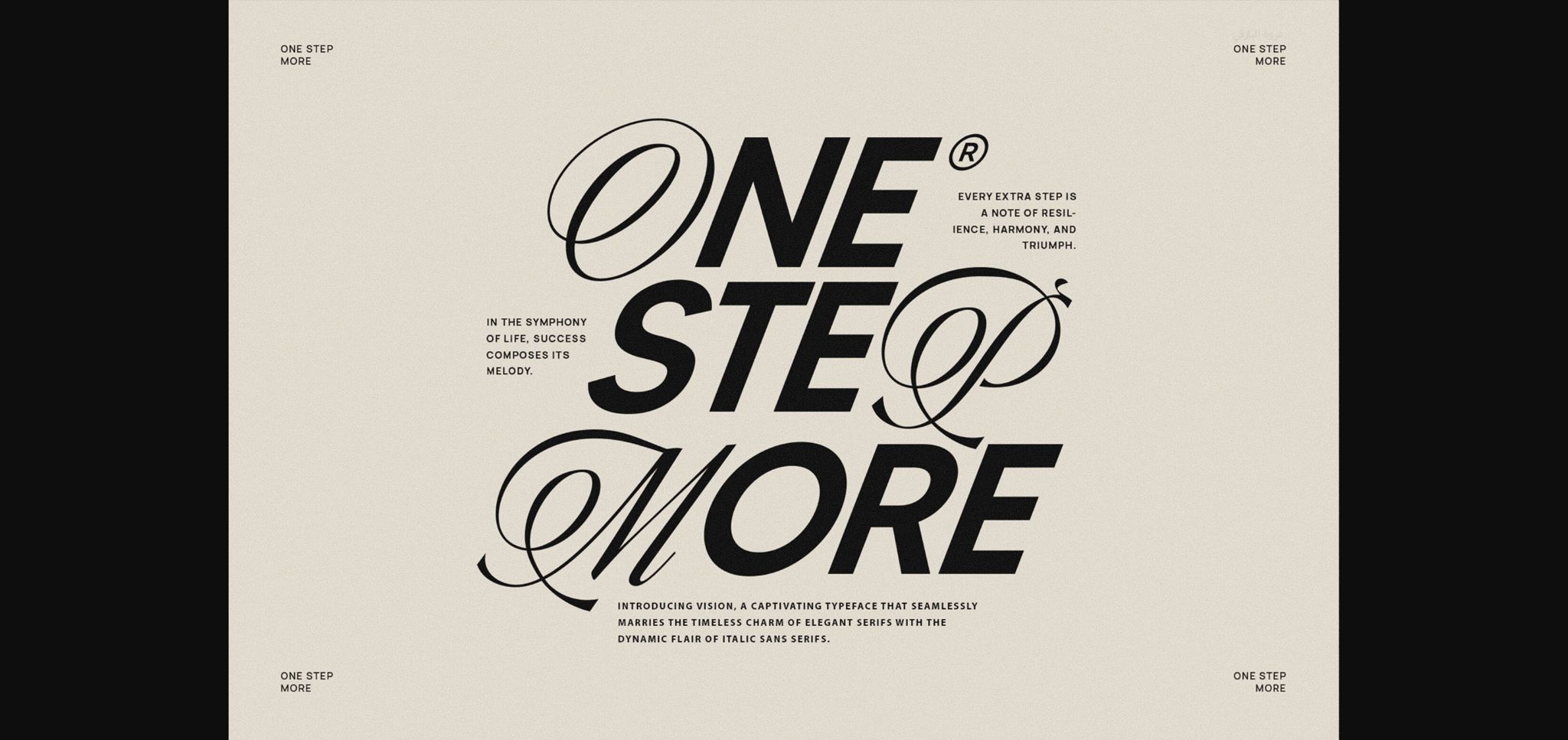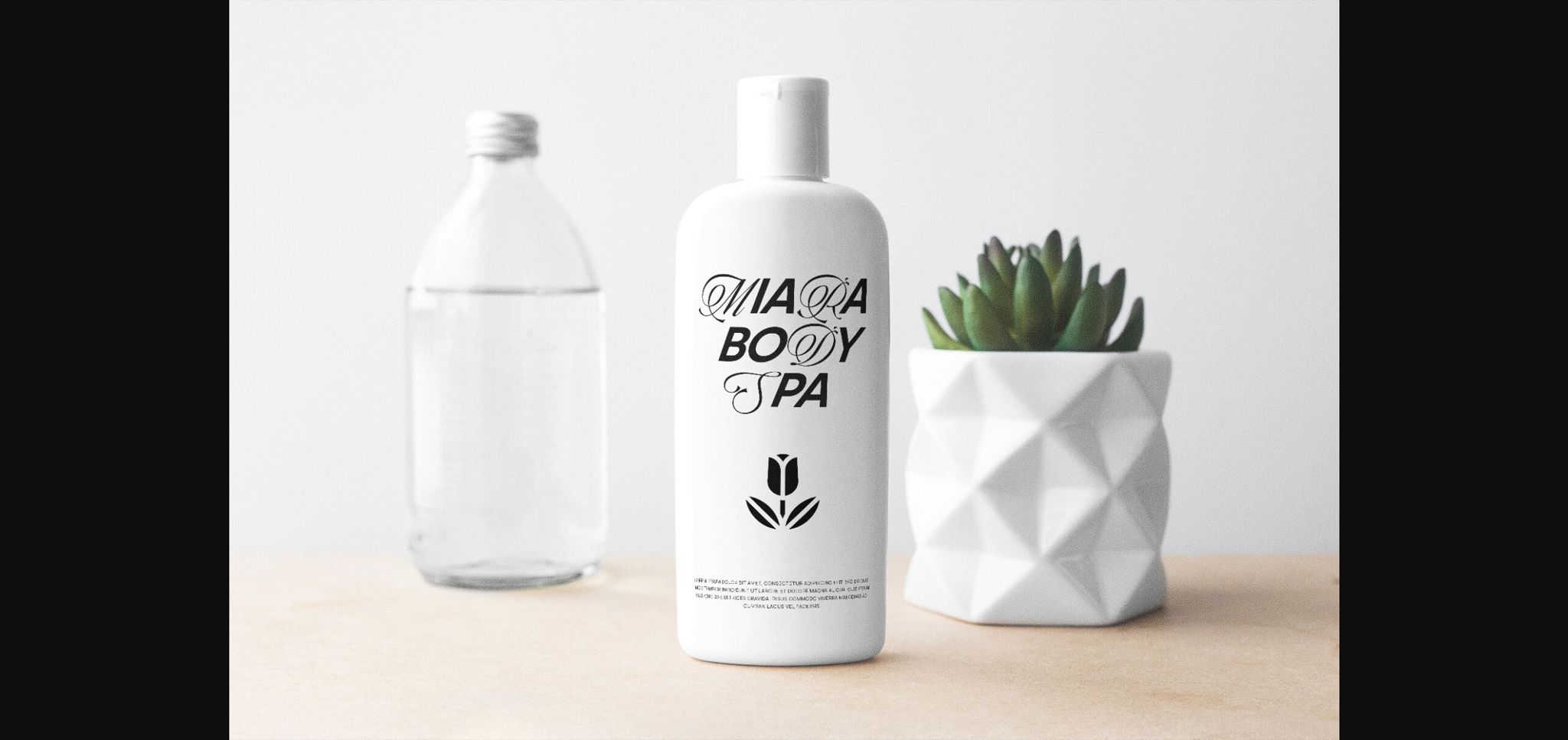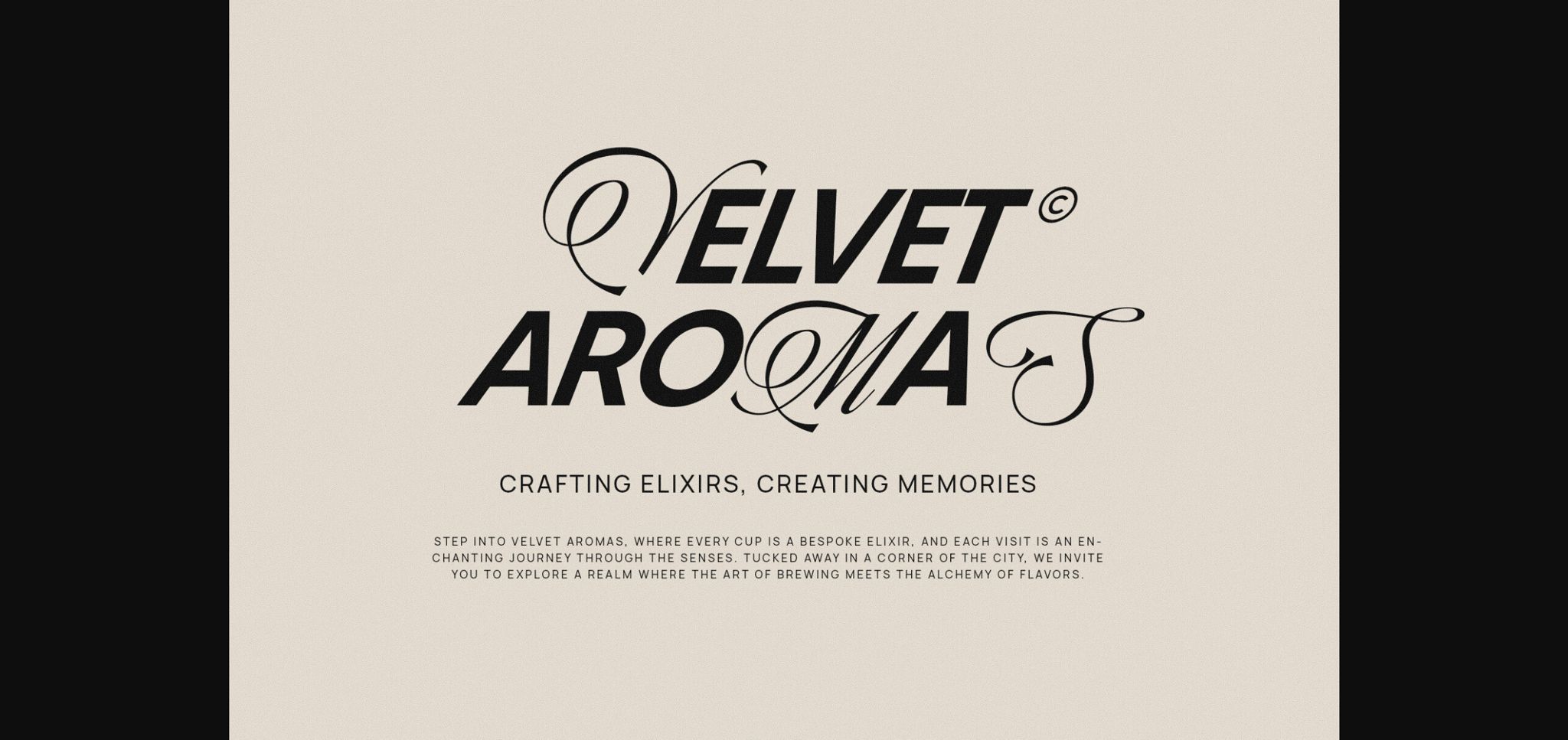
About One Step More Font
One Step More Modern Sans Combination is a sleek and straightforward font duo. It blends simplicity with a touch of modern style, making it perfect for various projects. Whether you’re creating posters, logos, or social media graphics, this font combination adds a clean and professional look to your designs. Take your projects one step further with this versatile and easy-to-use font duo.